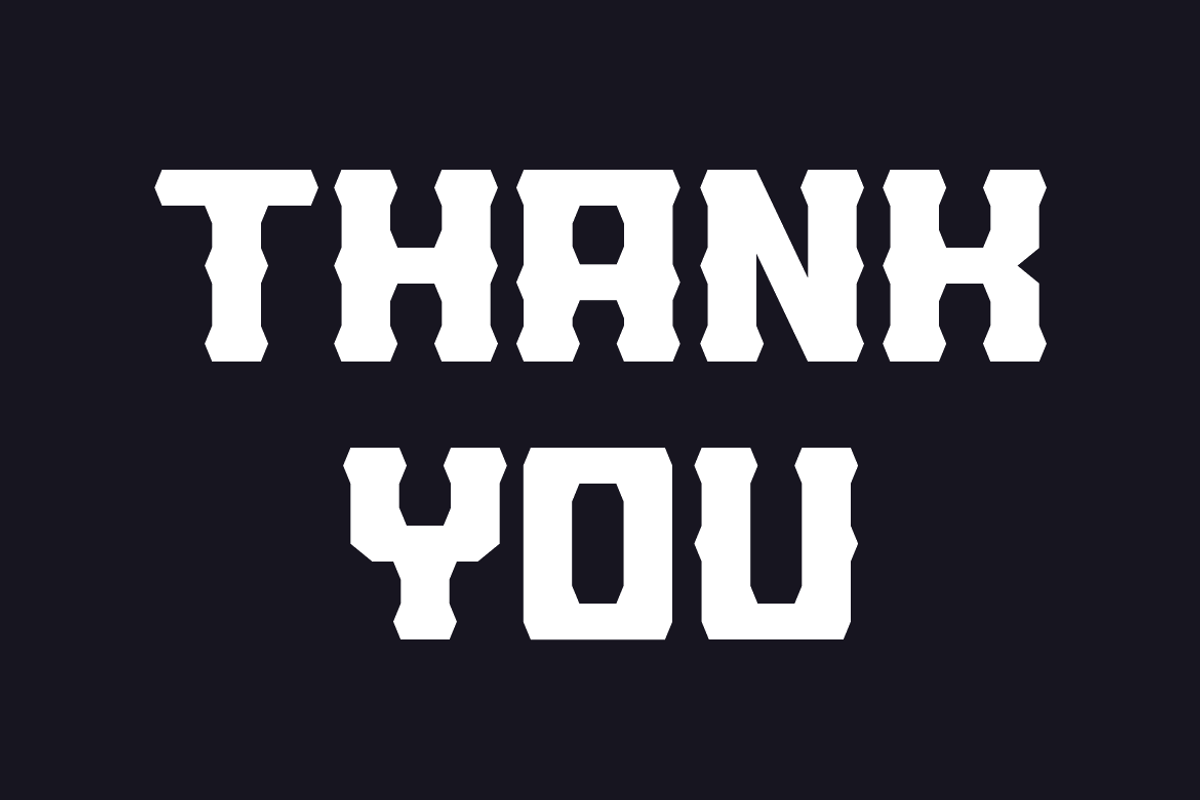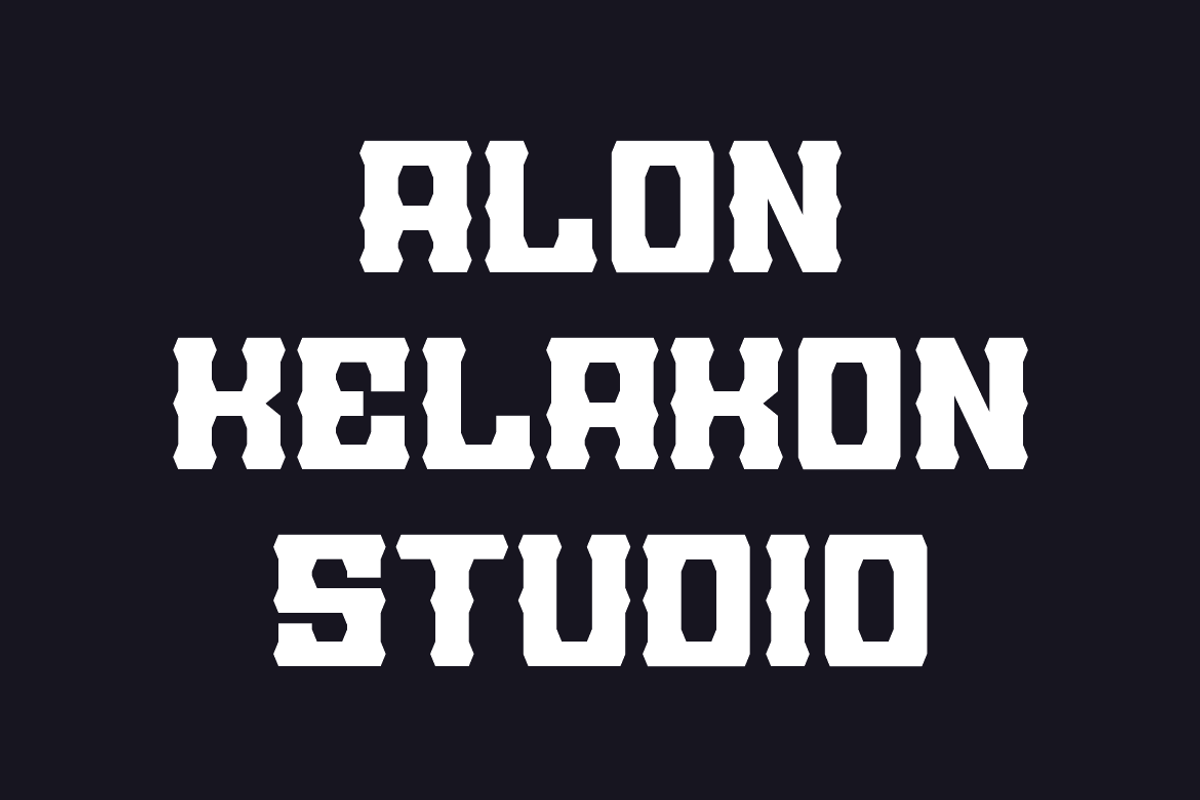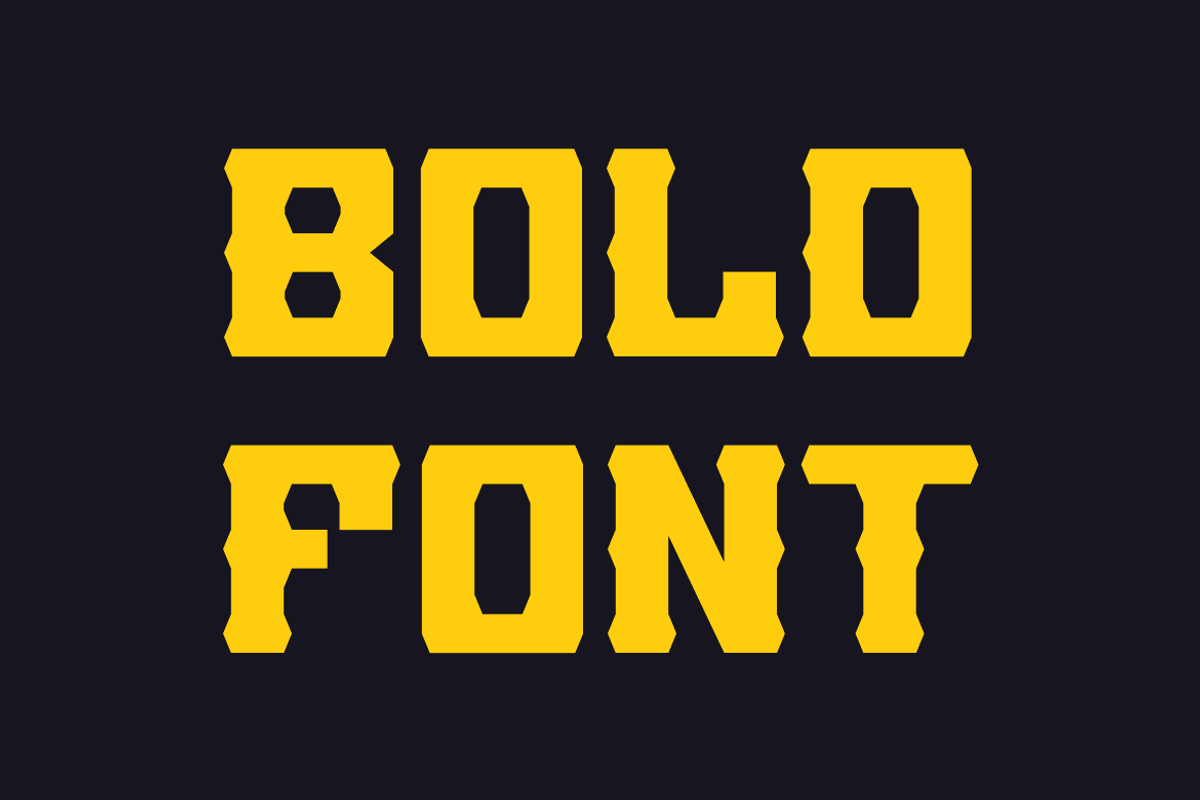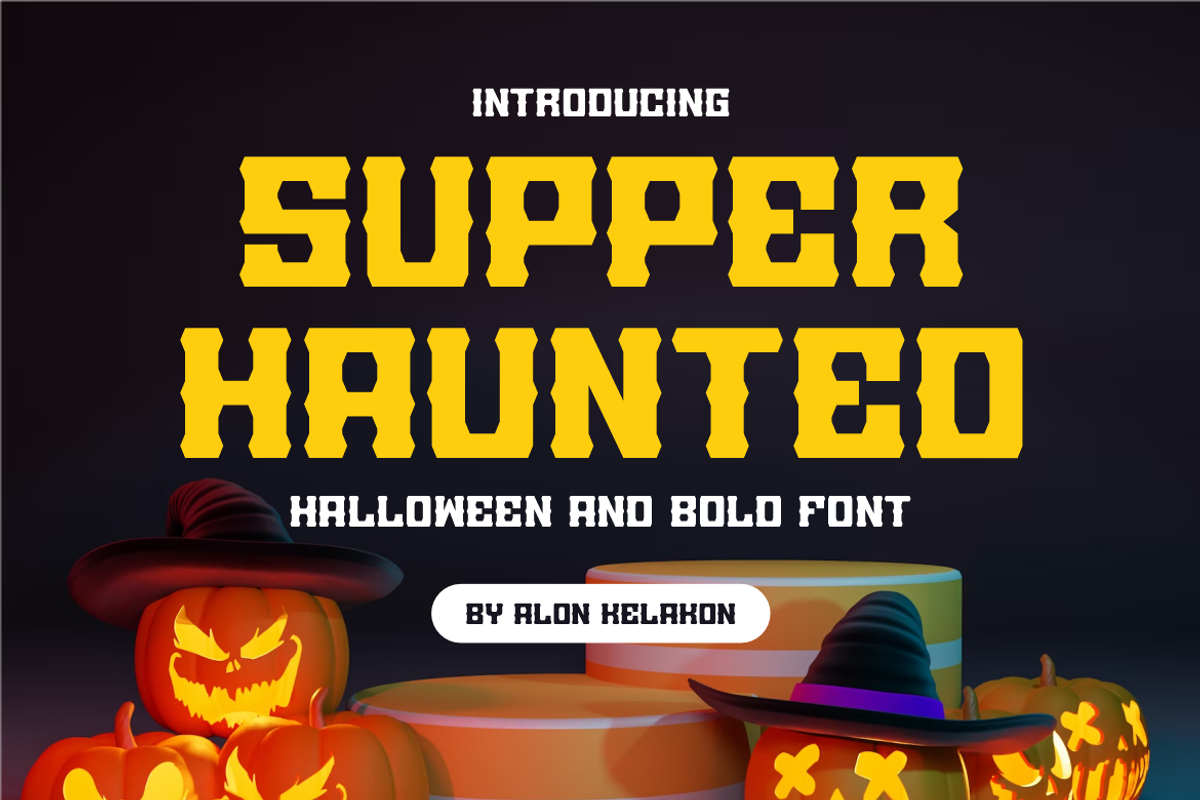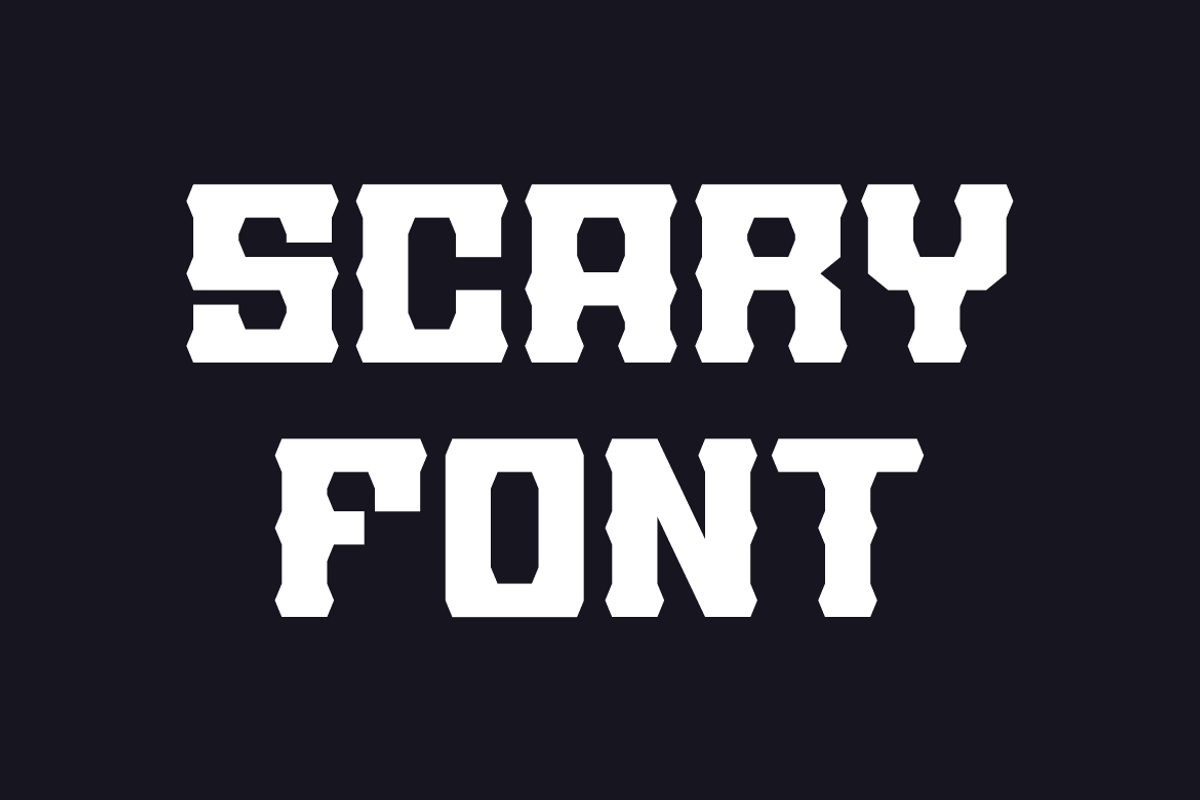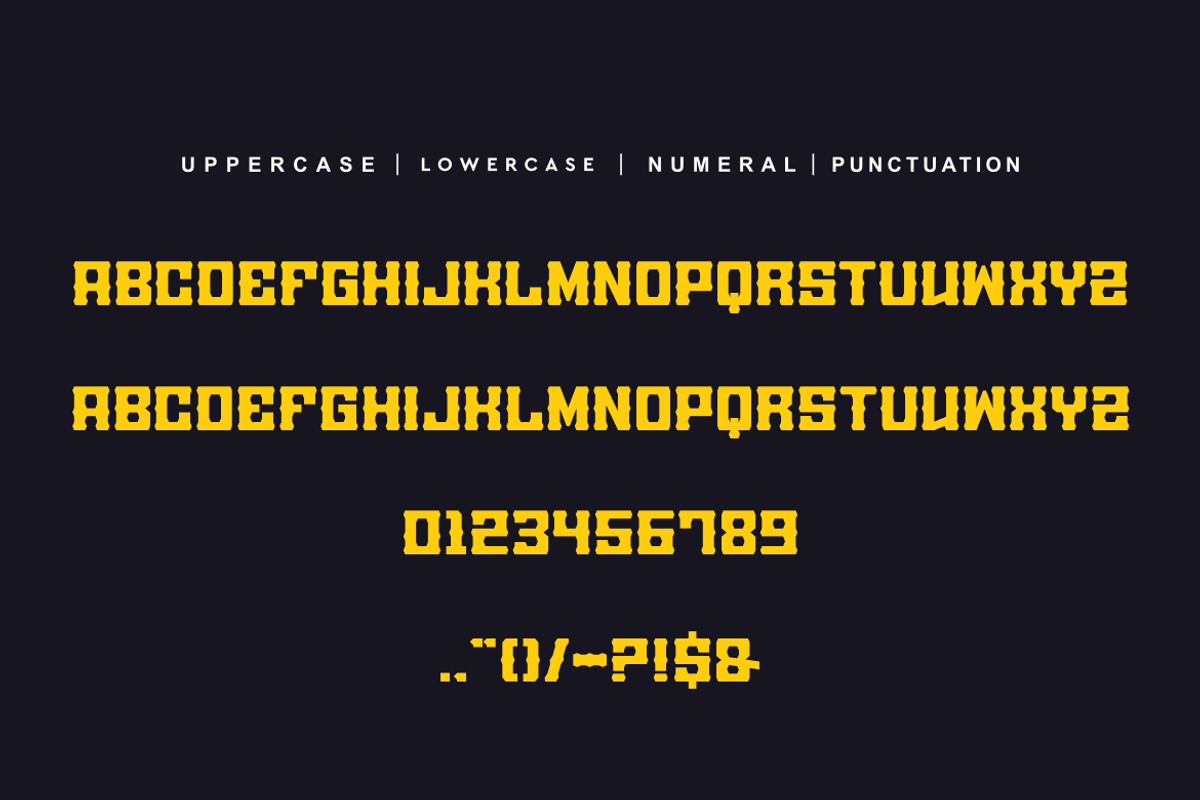
Supper Haunted
Supper Haunted Font is unique . Ready to use for your design like labeling, movie sceen, poster, movie title, gigs, album covers, logos, and much more.